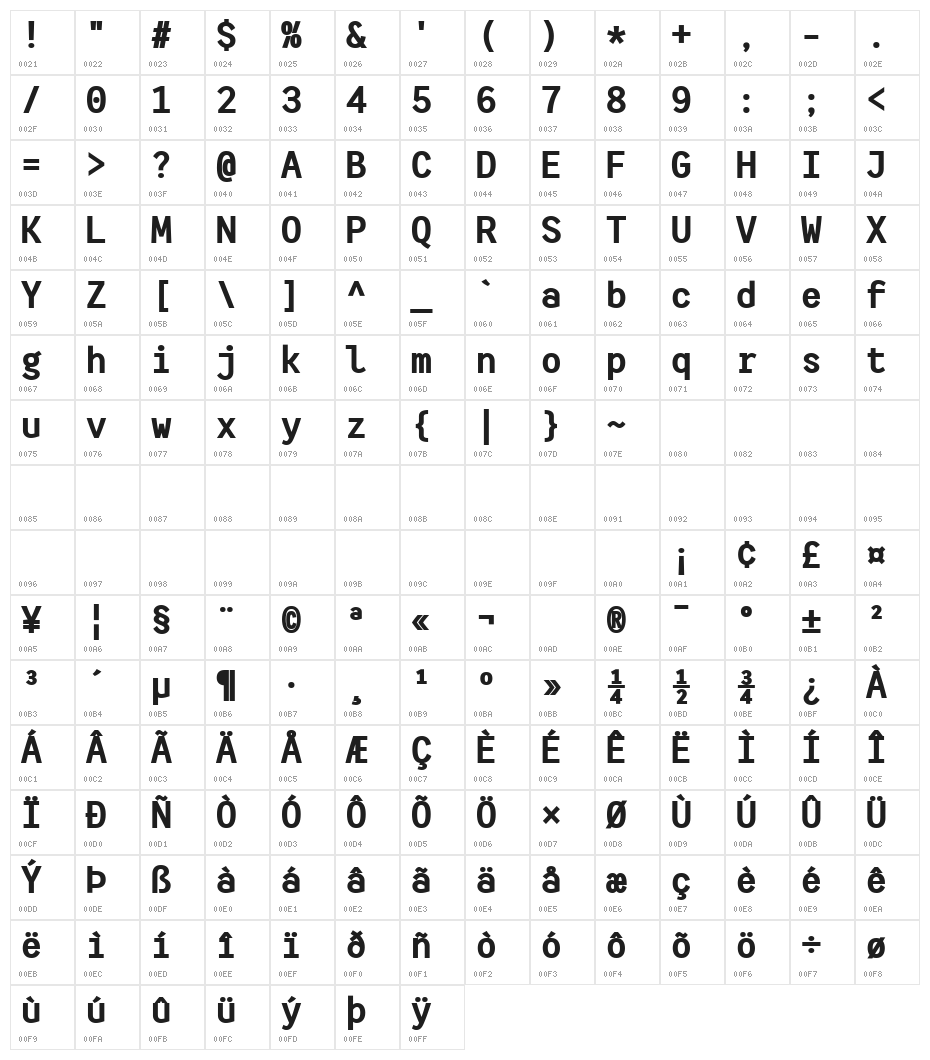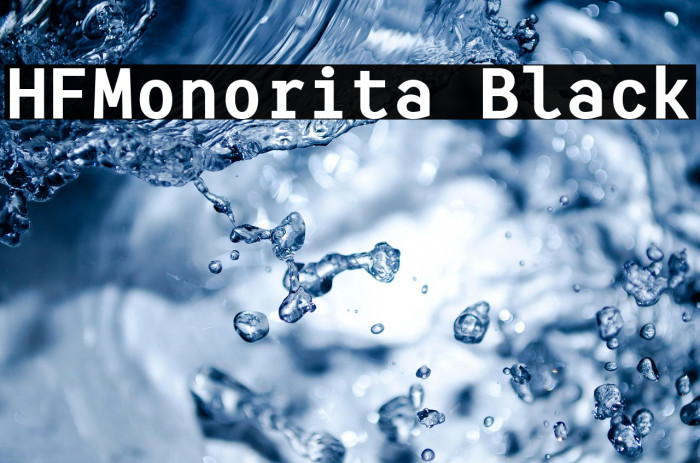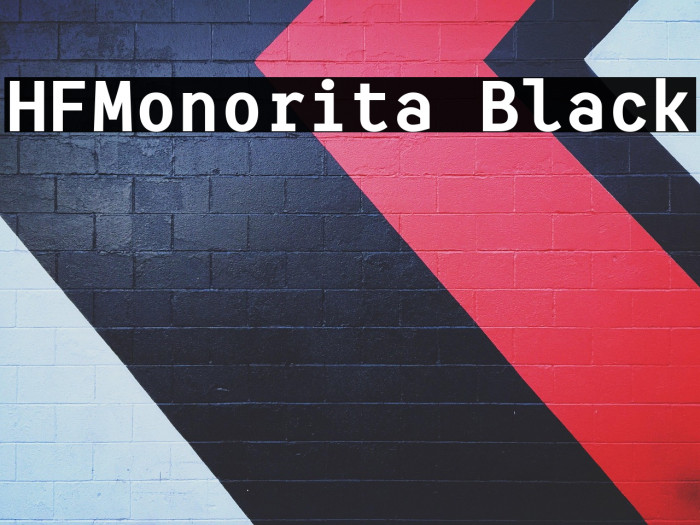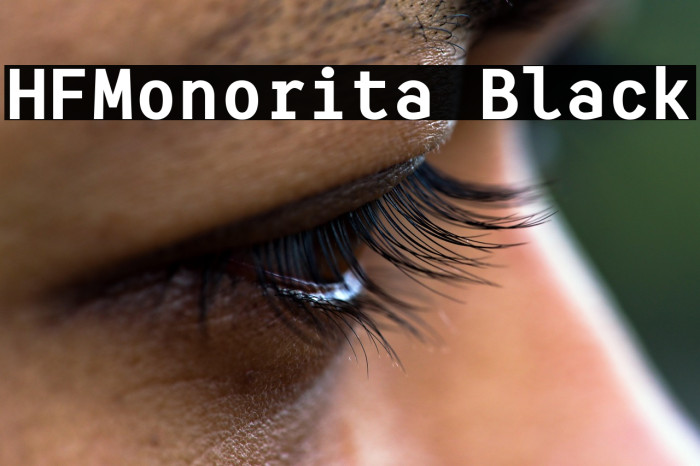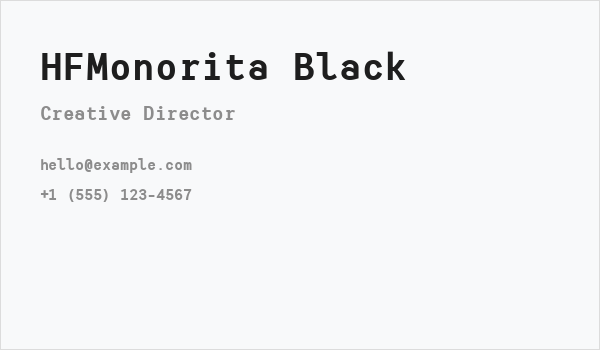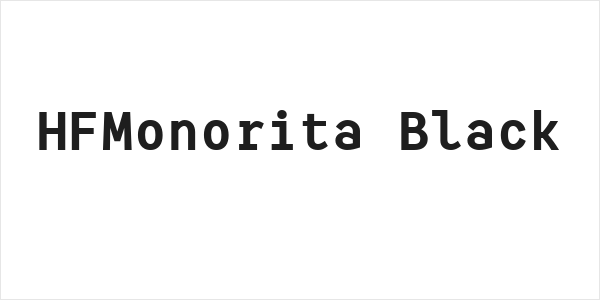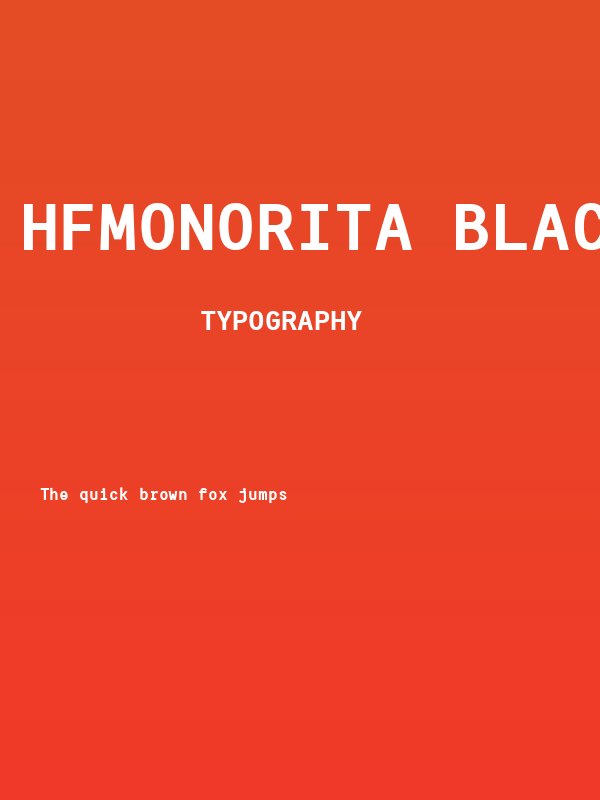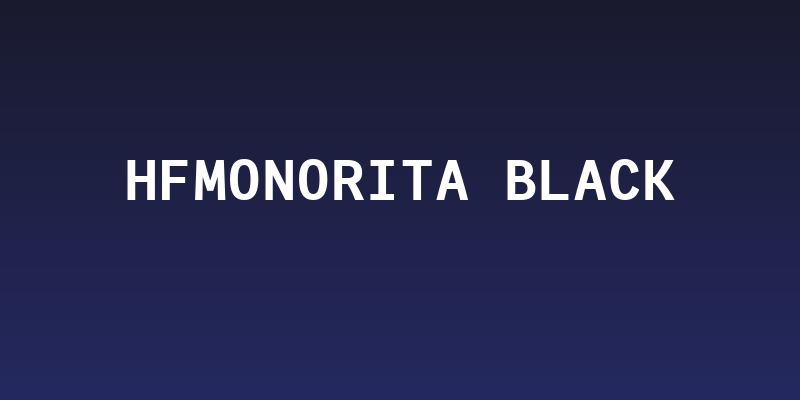
HFMonorita Black Font
HFMonorita Black Description
This font features a bold, monospaced design with a modern and clean aesthetic. The characters are evenly spaced, providing a uniform appearance that is ideal for coding and technical documents. The uppercase and lowercase letters maintain a consistent height and width, enhancing readability and creating a structured look. The numerals are clear and distinct, making them suitable for data presentation. Special characters are well-defined, ensuring clarity in various contexts. The overall style is straightforward and functional, making it versatile for different applications.
| Use Case | Headlines, Body text, Logos, Technical documents |
| Proposed Projects | Perfect for coding environments, technical documentation, data presentation, and any project requiring a clean and uniform typeface. |